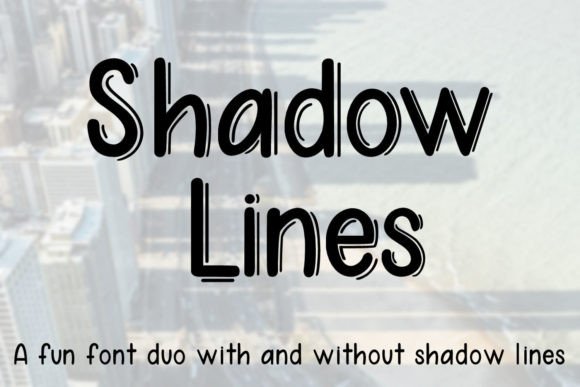
Unleash the captivating charm of your designs with the Shadow Lines Font, a mesmerizing sans serif duo that redefines visual aesthetics. This font family is crafted to elevate your creative projects to new heights, effortlessly adding a touch of sophistication and elegance to every word.
Dive into the world of Shadow Lines and discover a font that knows no boundaries. Its versatility shines through, making it the perfect companion for an array of design endeavors. Whether you're crafting striking logos, captivating posters, or eye-catching social media graphics, Shadow Lines will seamlessly adapt, enhancing your message with its timeless appeal.
Imagine your words taking on a life of their own, captivating audiences with their graceful curves and sharp edges. Shadow Lines possesses an innate ability to command attention, leaving an indelible mark on the minds of those who behold it. Its unique character shines through, adding depth and dimension to your designs, transforming them into masterpieces that resonate with emotional impact.
With Shadow Lines, you'll embark on a creative journey where your imagination knows no limits. Let your designs blossom with newfound allure, captivating your audience with every stroke. Embrace the power of this font and watch as your creative visions come alive, leaving an everlasting impression that speaks volumes.
So why settle for ordinary when you can elevate your designs to extraordinary? Choose Shadow Lines today and unlock a world of creative possibilities, where every project becomes a testament to your artistic brilliance. Unleash the font's magic and witness the transformation of your designs into captivating works of art.